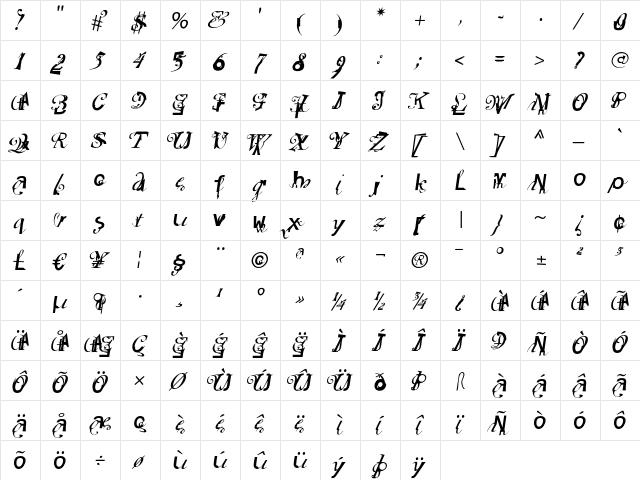
ElliottsBlueEyeShadow Regular
Design Context for ElliottsBlueEyeShadow Typeface
ElliottsBlueEyeShadow is built around its visual character rather than neutral utility — its distinctive forms are designed to make an impression at display sizes.
Font Pairing: Pair with a clean neutral sans-serif for body copy to let ElliottsBlueEyeShadow's character lead without overwhelming the composition.
Pro Tip: Use ElliottsBlueEyeShadow exclusively at display sizes — it was designed to be seen, not read at length. Let a neutral companion handle body copy.